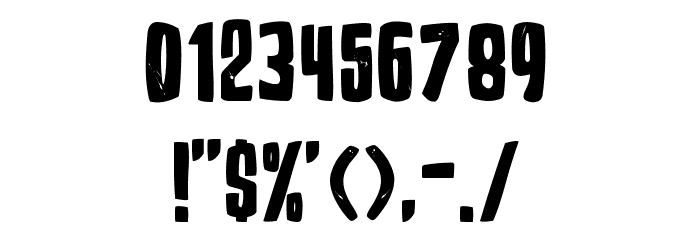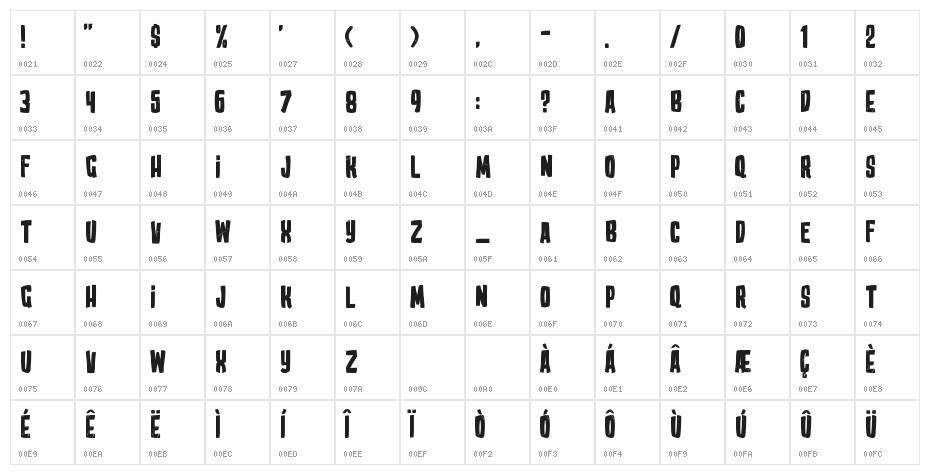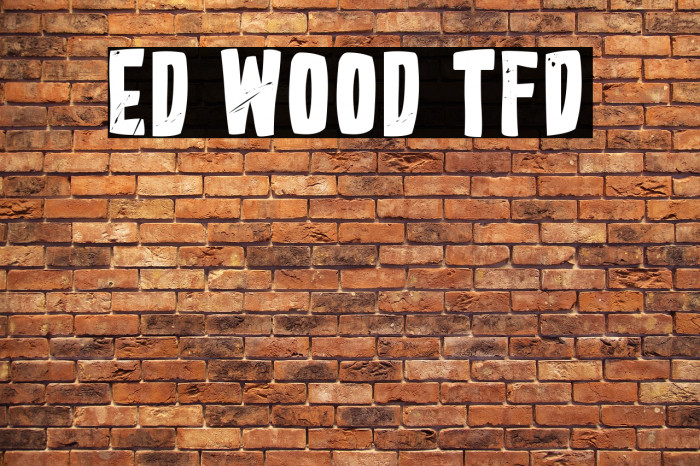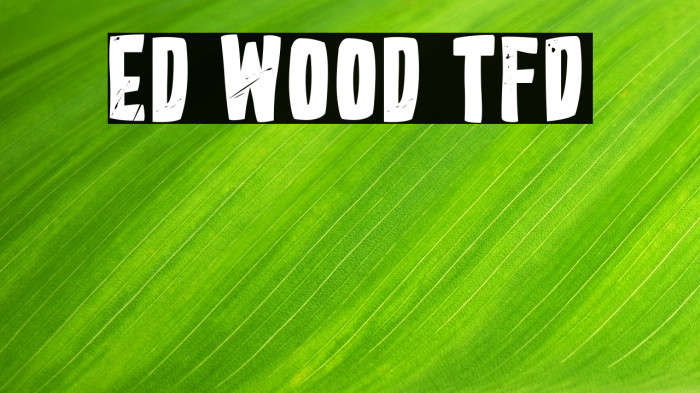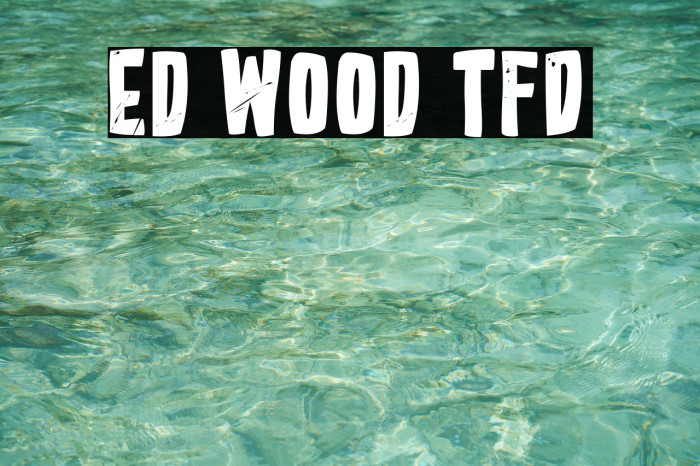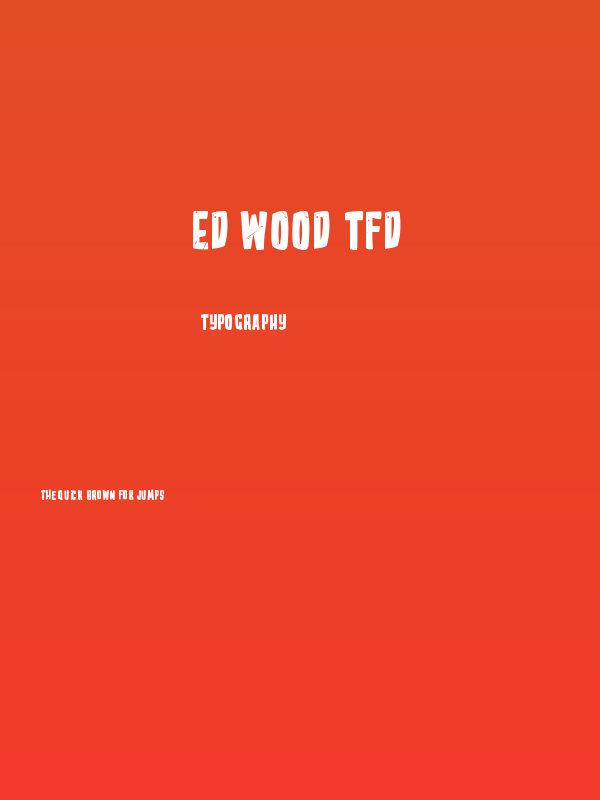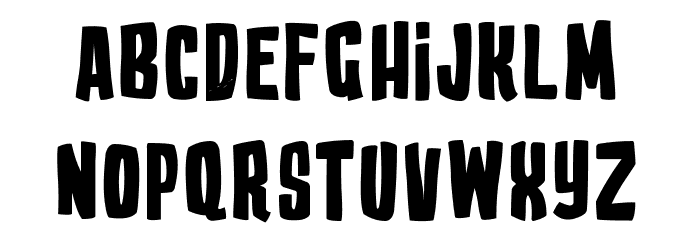
Ed Wood TFD Font
Ed Wood TFD Description
This font features a bold and distressed style, characterized by its uneven edges and slightly irregular letterforms. The uppercase and lowercase letters maintain a consistent height, giving it a monospaced appearance. The numbers and special characters follow the same rugged aesthetic, making the font suitable for projects that require a vintage or grunge look. Its boldness ensures high visibility, while the distressed texture adds a unique, handcrafted feel. The font's style is reminiscent of retro signage or posters, making it ideal for creative and artistic applications.
| Overall Style | Vintage |
| Proposed Projects | Ideal for retro posters, vintage-themed designs, album covers, and creative branding projects. |